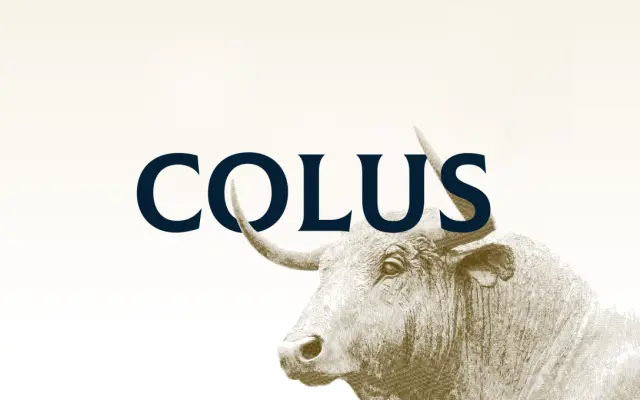
Colus
Fontfabric · Stan Partalev · 2018
A single-style display serif by Stan Partalev, inspired by carved stone and wood letterforms, released free by Fontfabric in 2018.
Sharp serif finishes and a classical structure give this face a weighty, inscriptional feel suited to headlines, posters and logotypes. It covers extended Latin and Cyrillic alphabets and includes OpenType features such as lining and old-style figures and stylistic alternates. The single weight limits its versatility but within its range it holds up well for brand identity and editorial title use.
A single-weight display serif with sharp, carved stone and wood letterform inspiration, placing it firmly in the display category rather than a text-optimised serif classification.